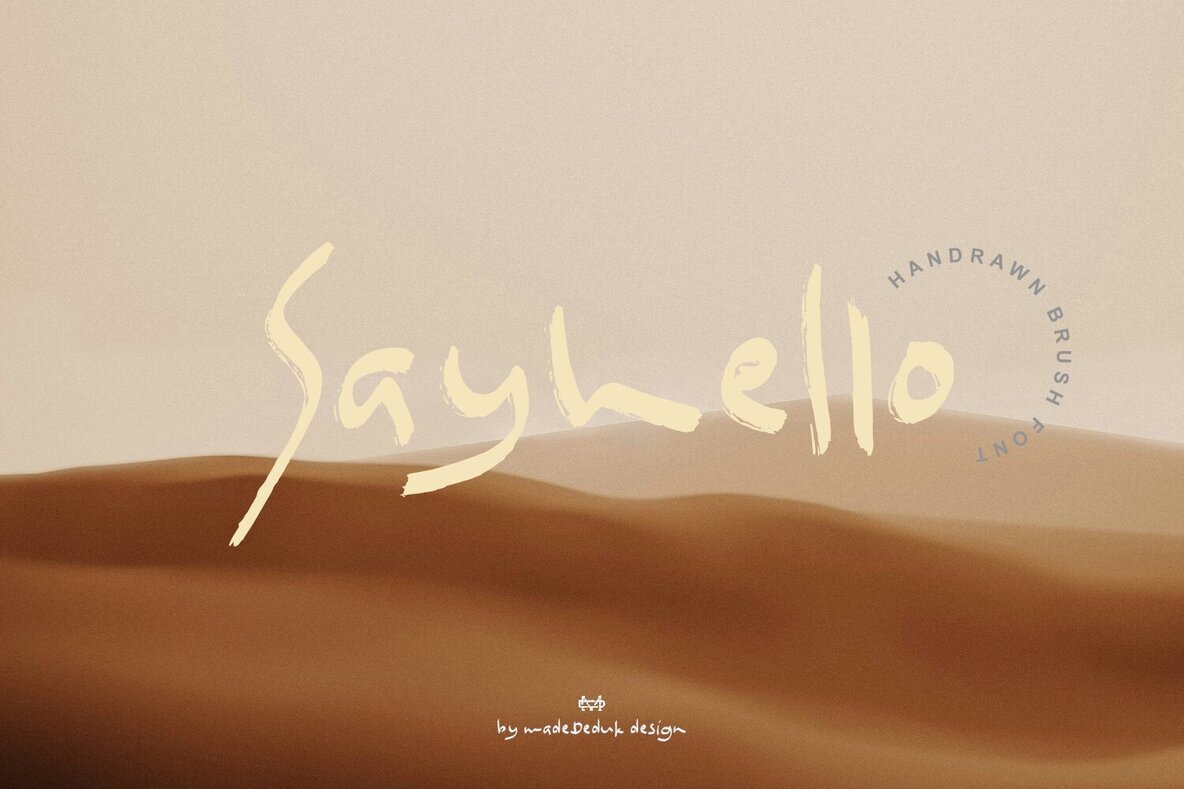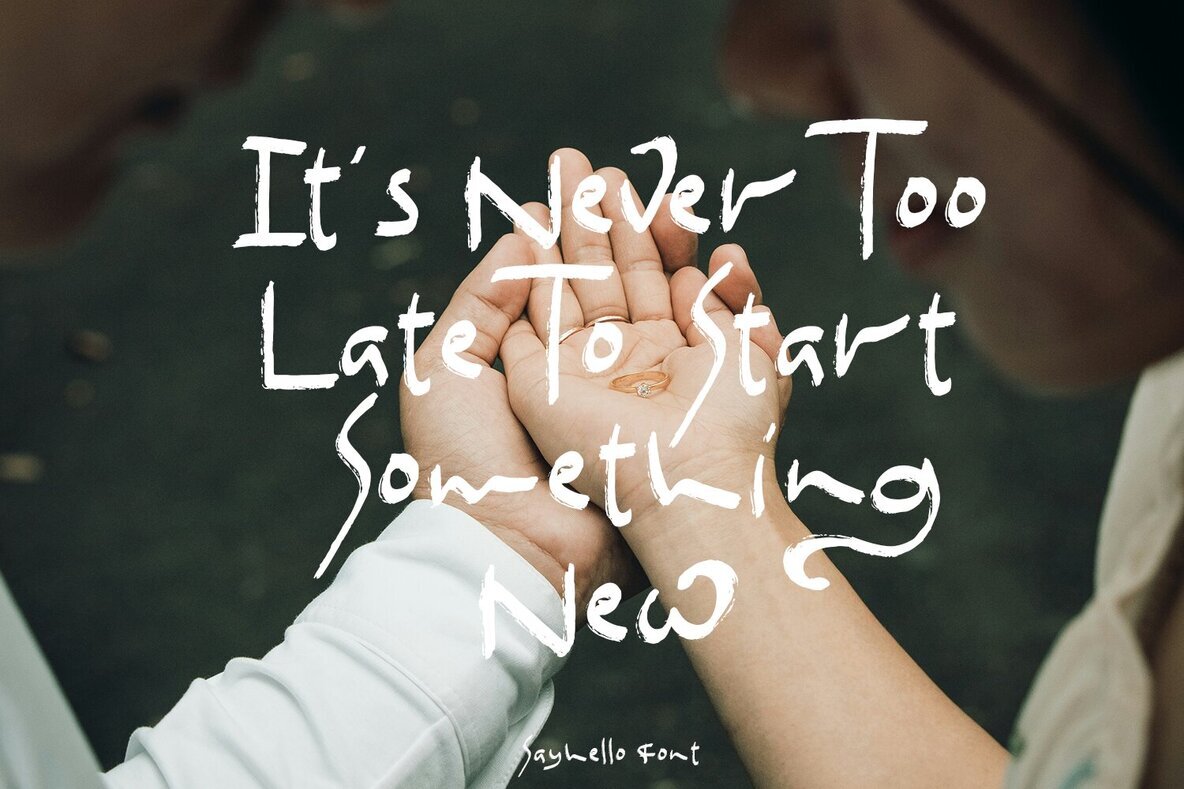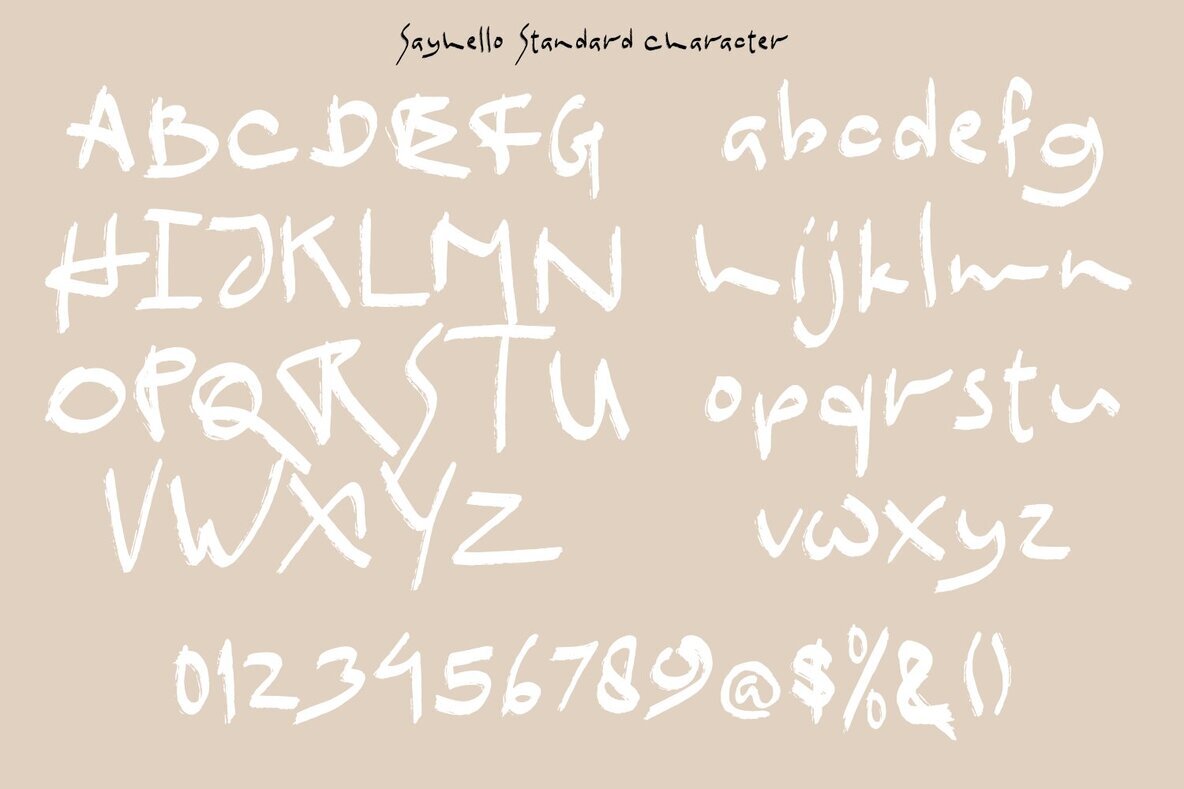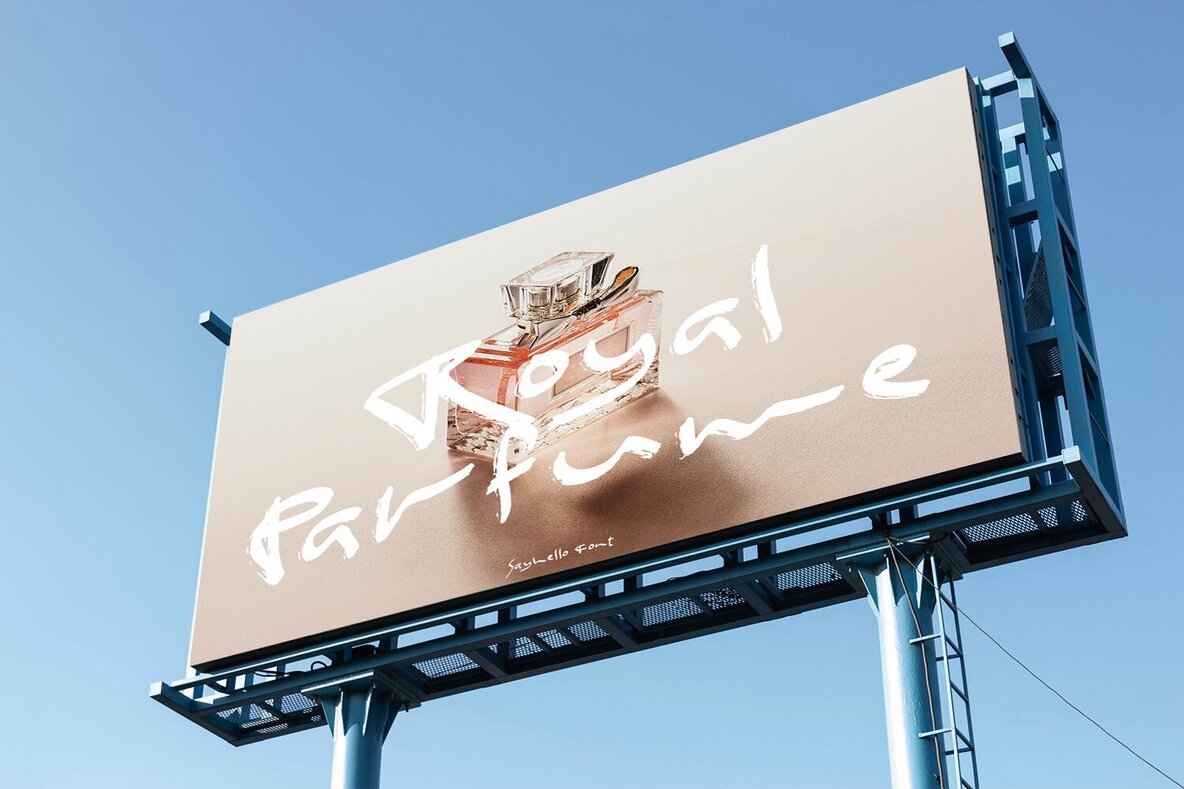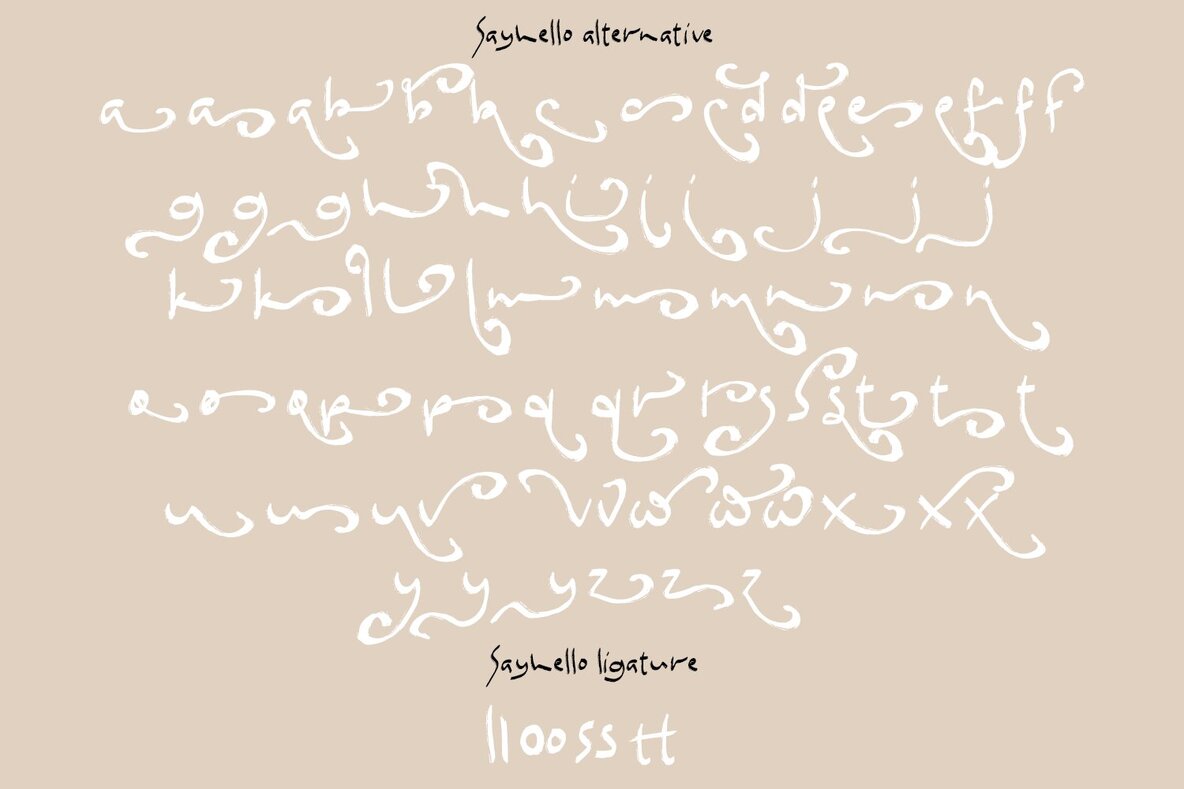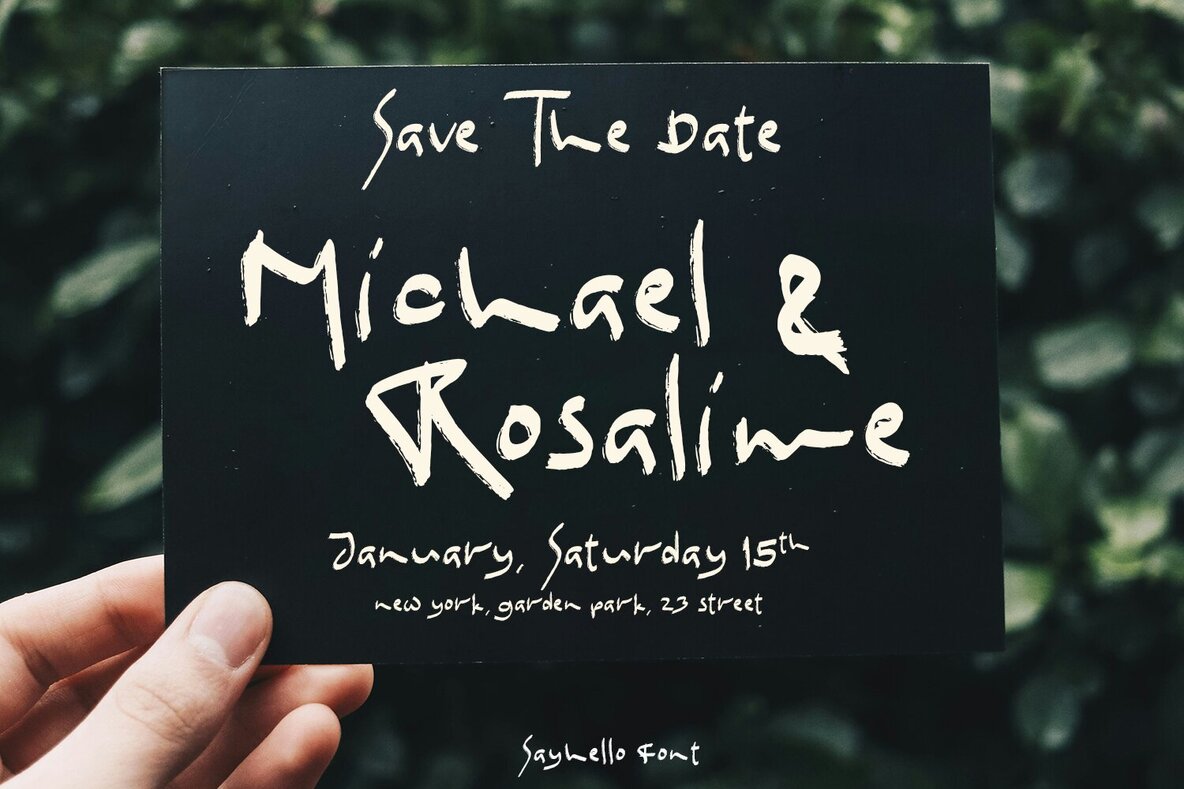
Sayhello Font
Sayhello
Sayhello is a realistic brush font designed to make a strong impact across your design projects. Its authentic and expressive strokes are perfect for adding a dynamic touch to posters, book covers, and merchandise. With an array of alternatives, Sayhello offers versatility whether you're working on fashion, newsletters, or branding.
Ideal for creative endeavors, Sayhello enhances advertising materials, magazine layouts, greeting cards, and album covers. The font’s dynamic brush style also suits quote designs, bringing expressive character and energy to each word. Explore the unique appeal and adaptability of Sayhello in your next design project.